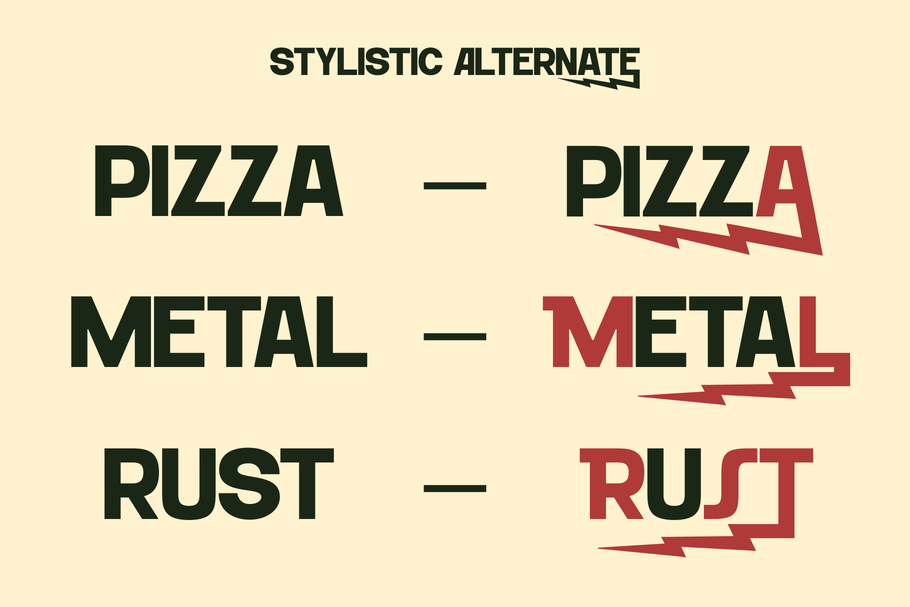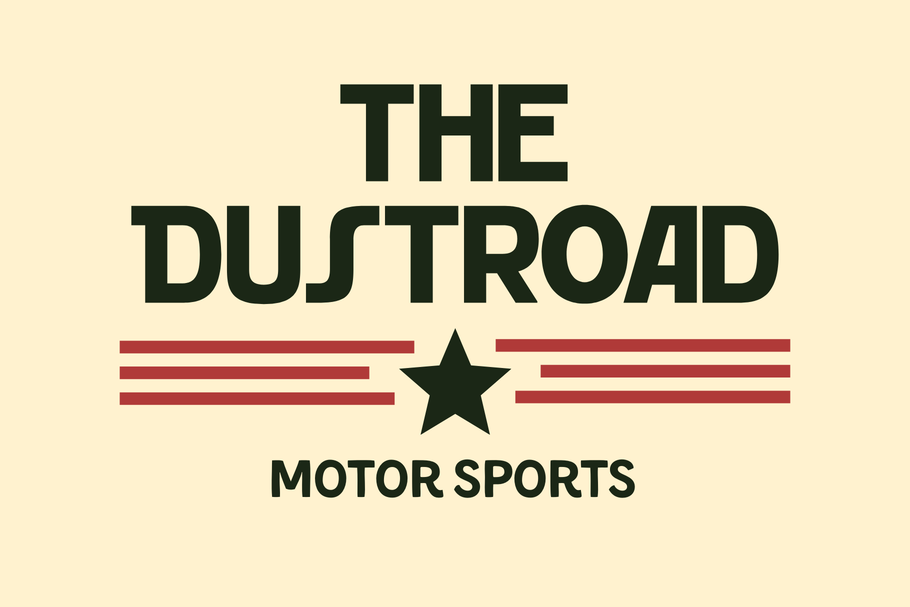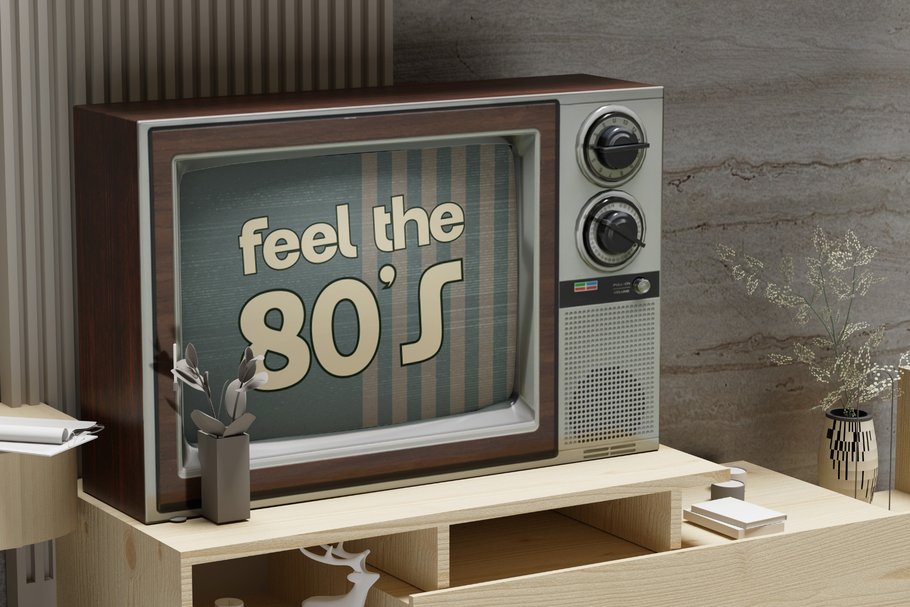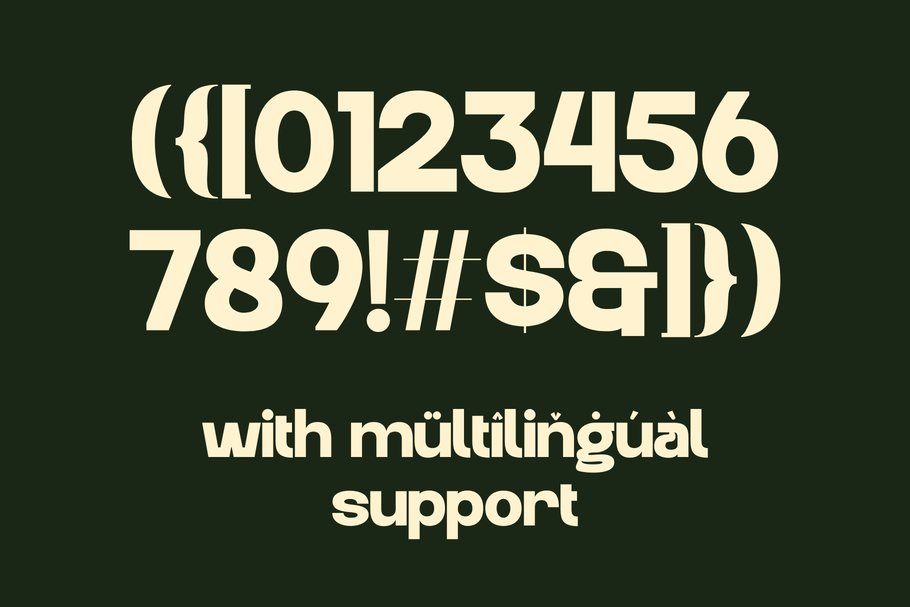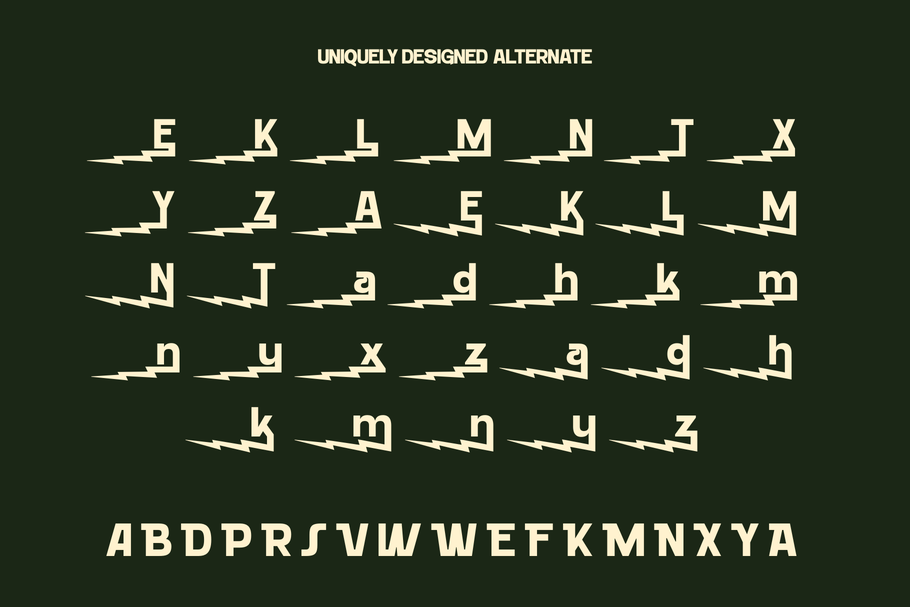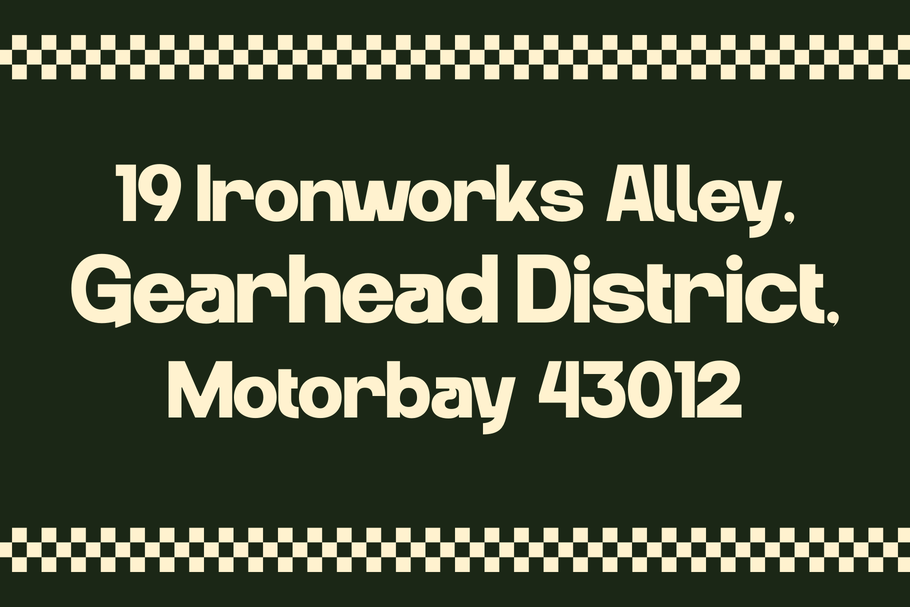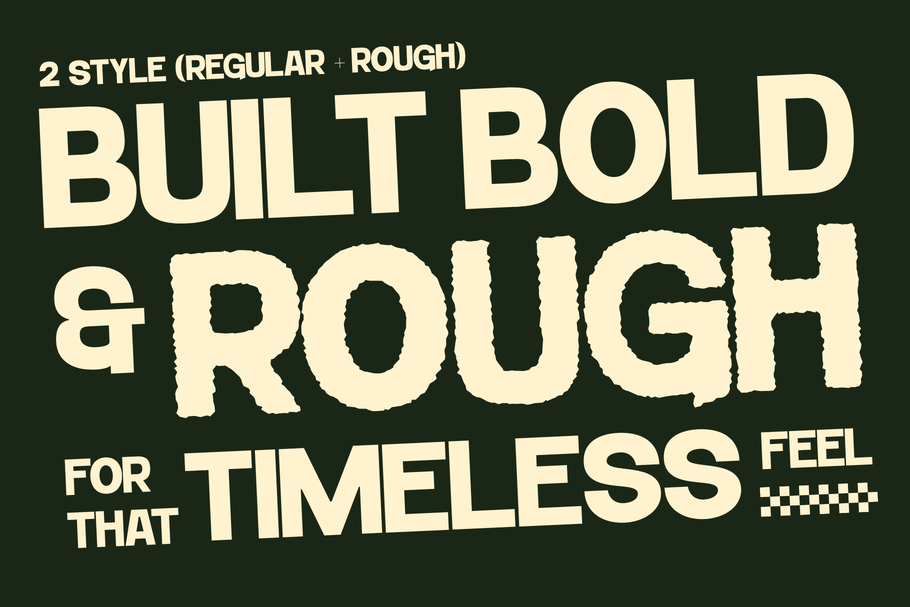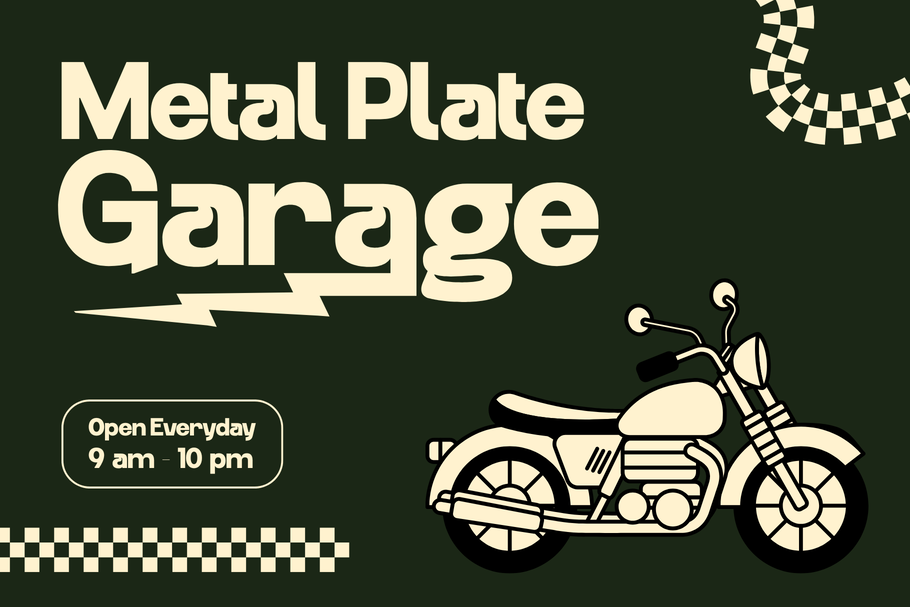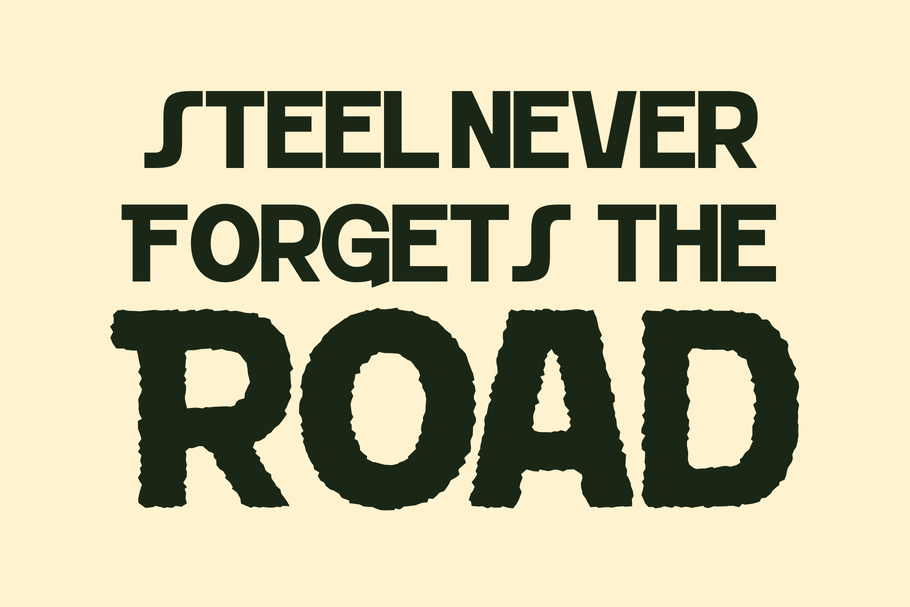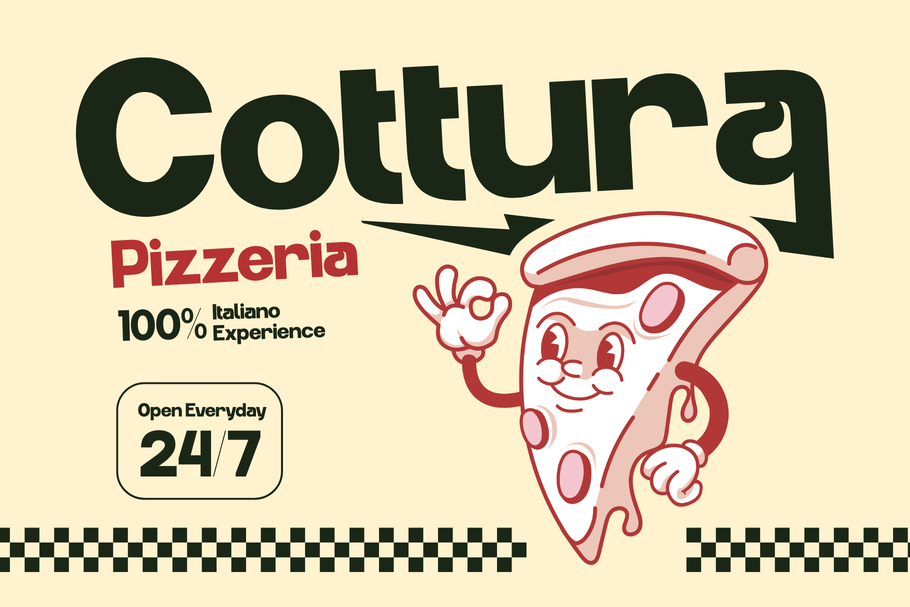
Rotura Vintage – Retro Logo Font
Rotura Vintage offers beautiful typographic harmony for a diversity of design projects, including logos & branding, social media posts, advertisements & product designs.
What you get : Regular + Rough
• Classic Logo Font
• Modern Design
• Perfect for Branding & Logos
• Multilingual Support
• Regular + Rough